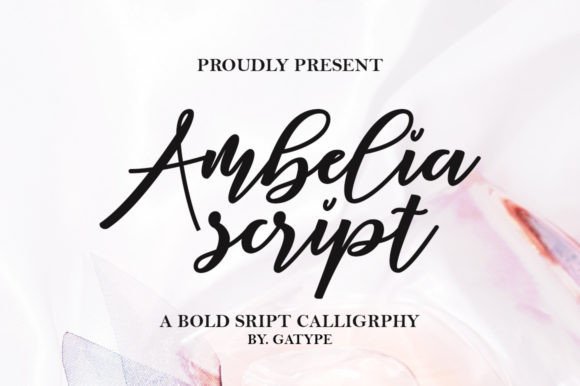
Unleash the captivating charm of handwritten elegance with Ambelia Script, a font that weaves a tale of artistry and emotion into every letterform. Step into a world of creative possibilities and let Ambelia Script ignite your imagination.
Dive into the depths of Ambelia Script's versatility, a font that dances effortlessly across a myriad of design landscapes. Whether you're crafting a heartfelt invitation, designing a captivating website banner, or adding a touch of personal flair to your social media posts, Ambelia Script molds itself seamlessly to your vision.
With Ambelia Script as your creative companion, transform ordinary designs into extraordinary masterpieces. Its flowing lines and graceful curves evoke a sense of timeless beauty, leaving an indelible mark on every project you undertake. Experience the joy of seamless creativity as Ambelia Script effortlessly complements your design aesthetic, enhancing your ideas with an air of sophistication and allure.
Let Ambelia Script be your guiding light as you navigate the world of design, unlocking hidden depths of creativity and leaving a lasting impression on all who encounter your work. Discover the enchanting power of Ambelia Script today and embark on a journey of limitless artistic expression.
Embrace the allure of Ambelia Script and let your imagination soar. Its timeless elegance and boundless versatility are waiting to be unleashed, ready to transform your creative vision into a captivating reality.